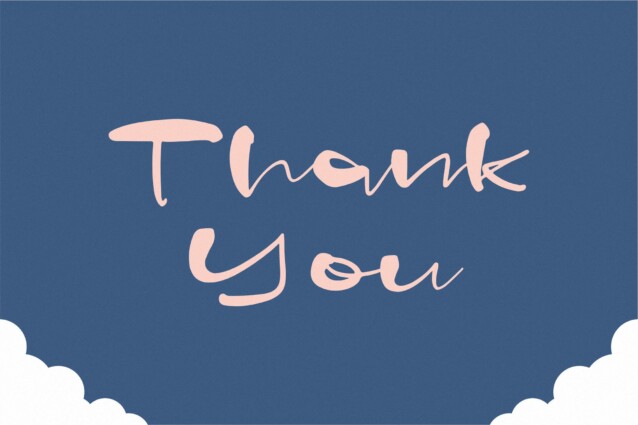
Dalfine Quick Font is a quirky Display Font, suitable for any projects such as: logos, branding projects, homeware designs, product packaging, mugs, quotes, posters, shopping bags, t-shirts, book covers, name card, invitation cards, greeting cards, label, photography, watermark, special events, and all your other lovely projects that need a beautiful script taste.